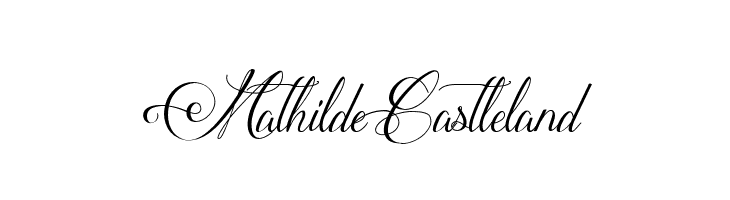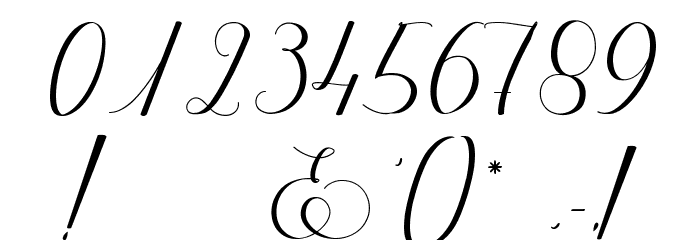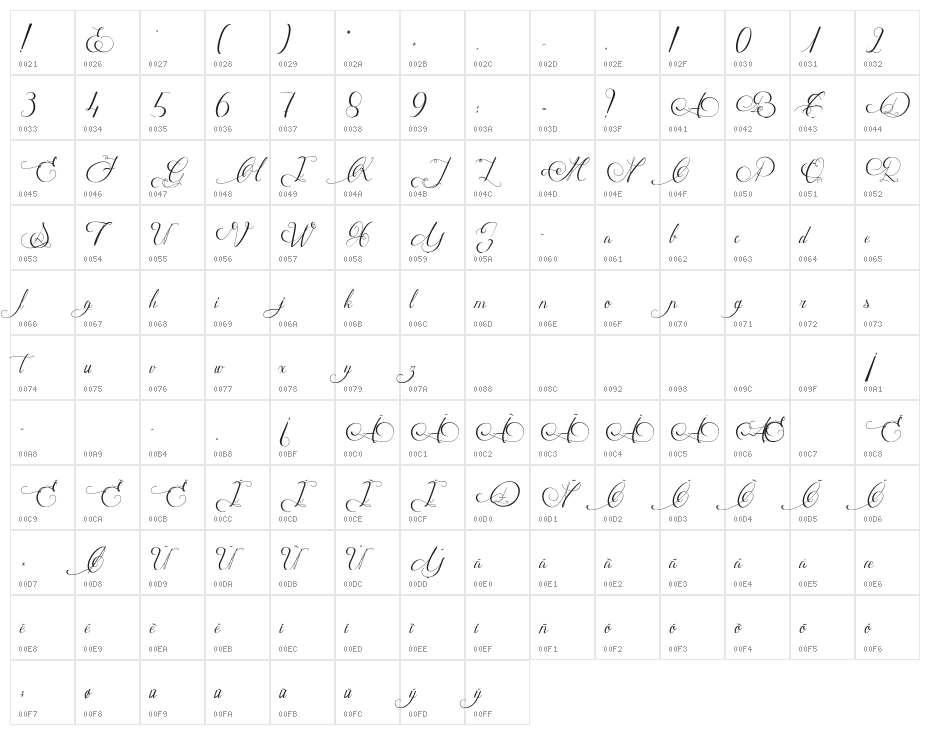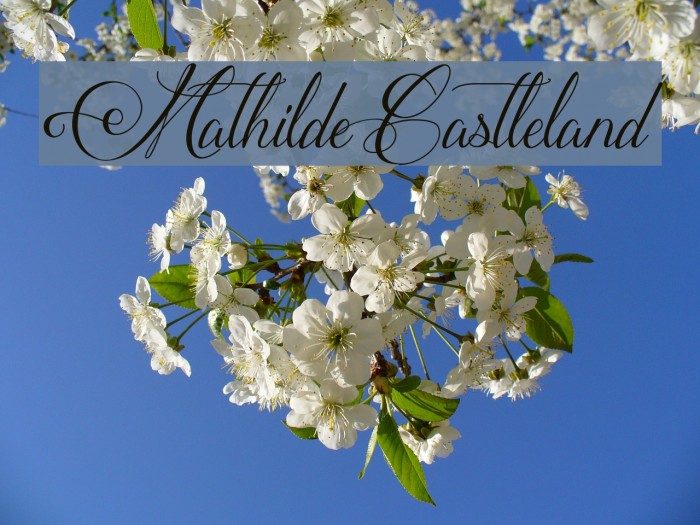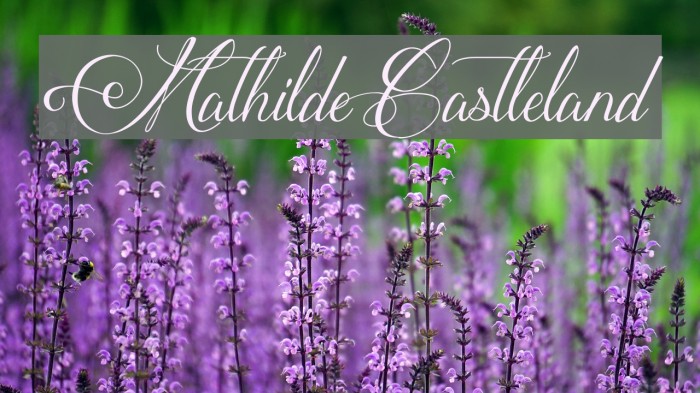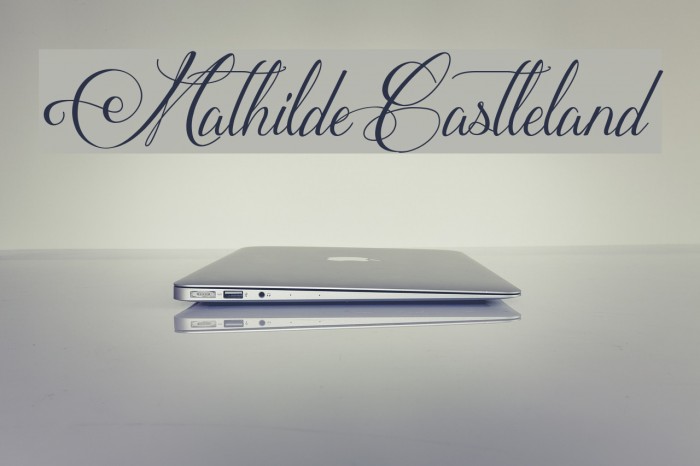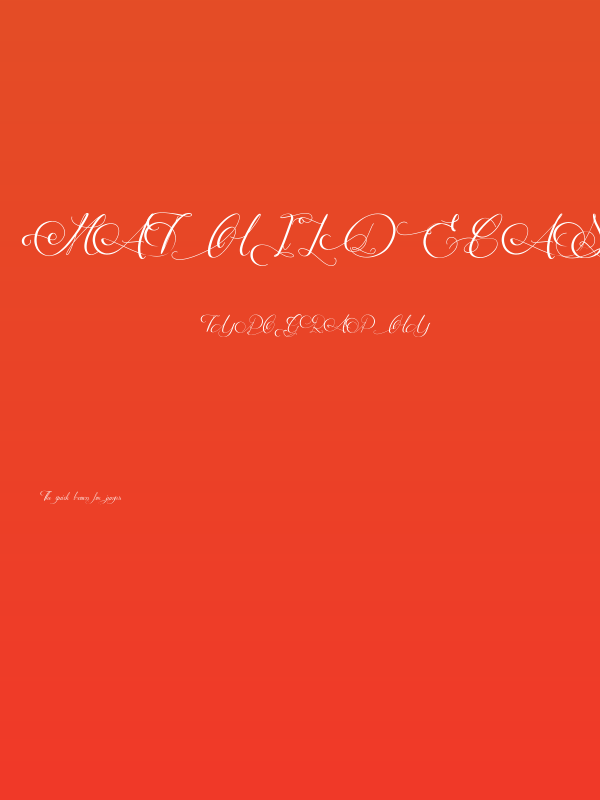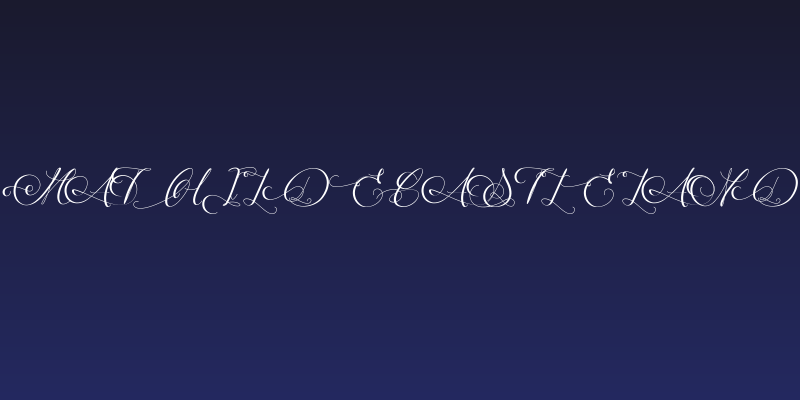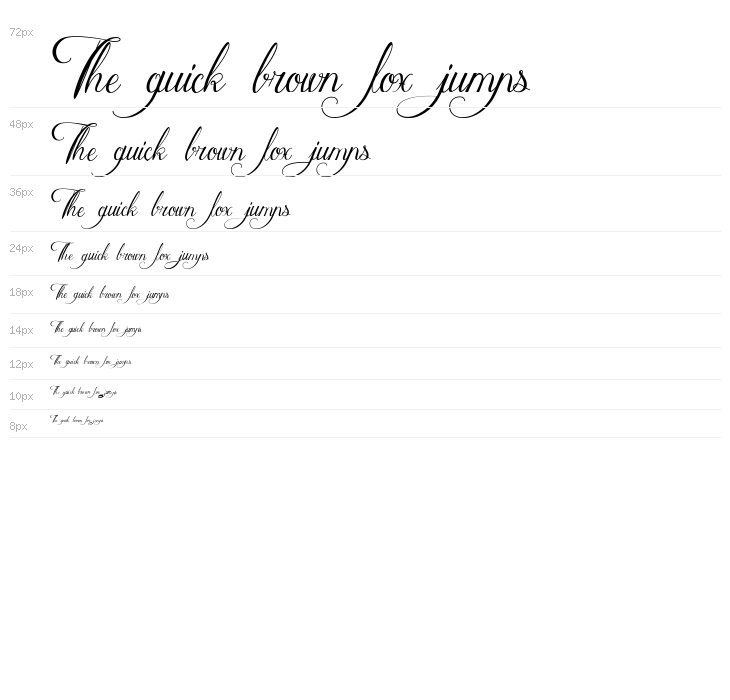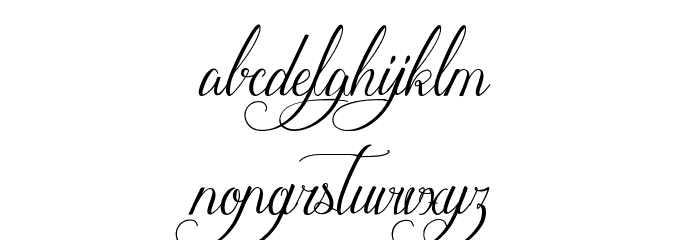
MathildeCastleland Font
MathildeCastleland Description
This elegant script font features intricate swashes and flourishes, creating a sense of sophistication and grace. The uppercase letters are adorned with elaborate loops and curves, while the lowercase letters maintain a more restrained yet still decorative style. The numerals are consistent with the overall elegant theme, featuring subtle curves and a refined appearance. Special characters are designed with similar attention to detail, enhancing the font's cohesive look. The overall design is reminiscent of classic calligraphy, making it suitable for formal and decorative applications.